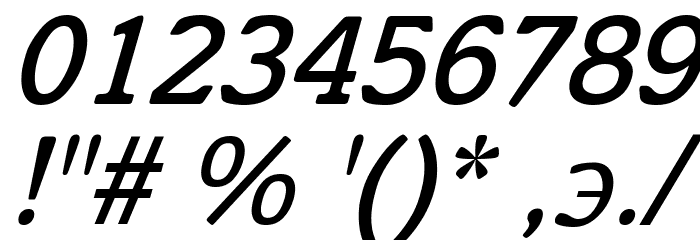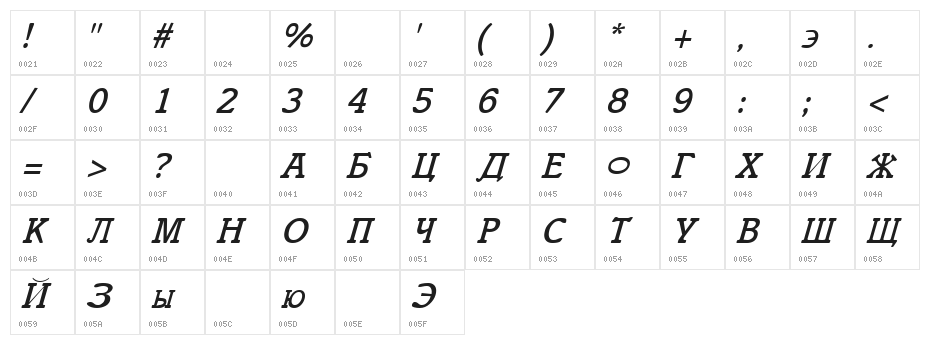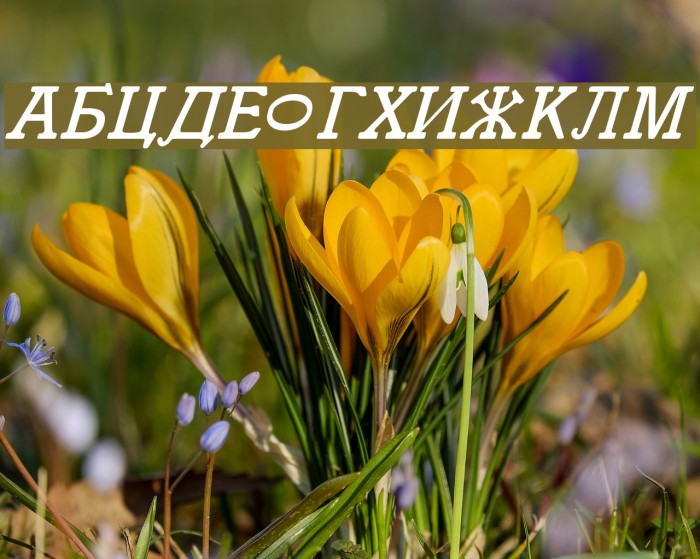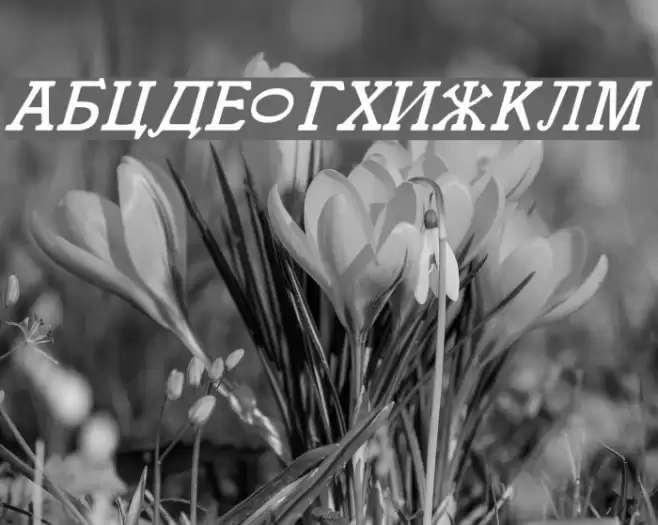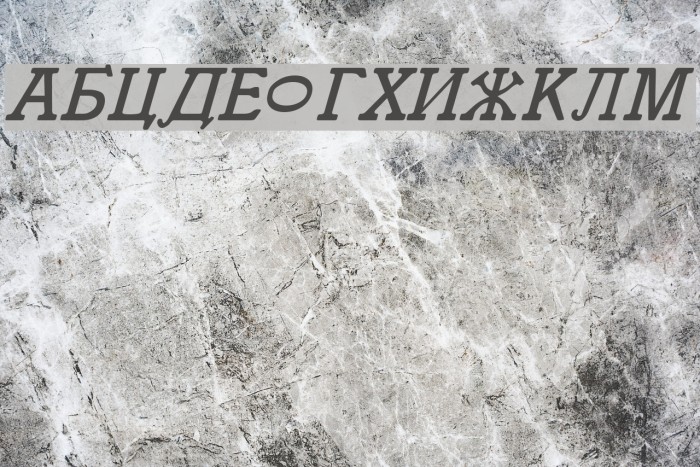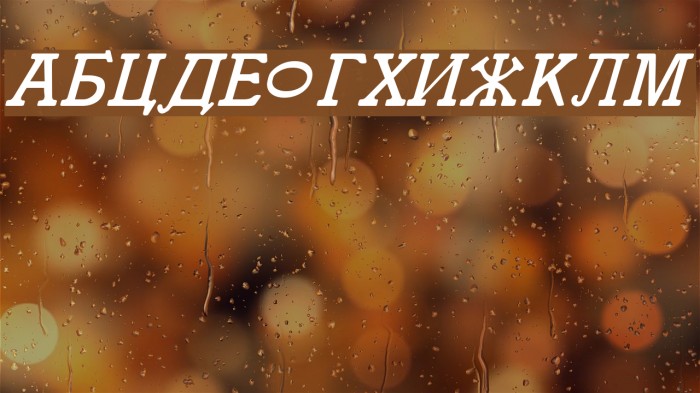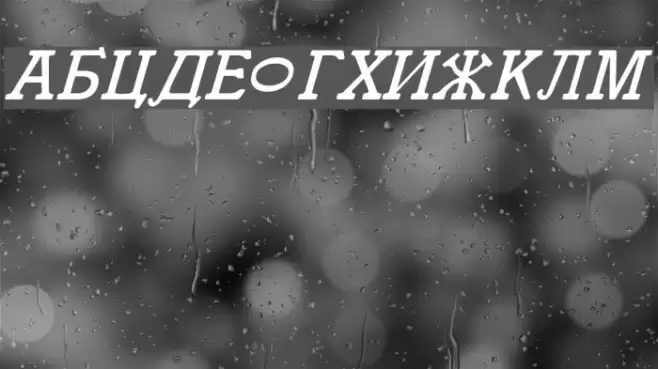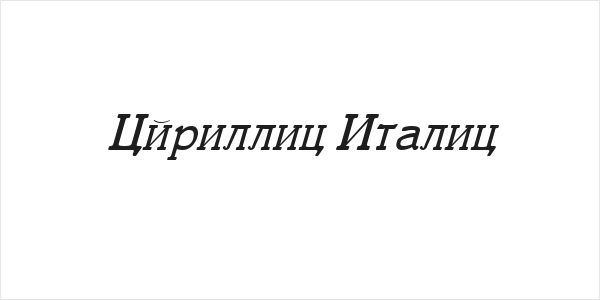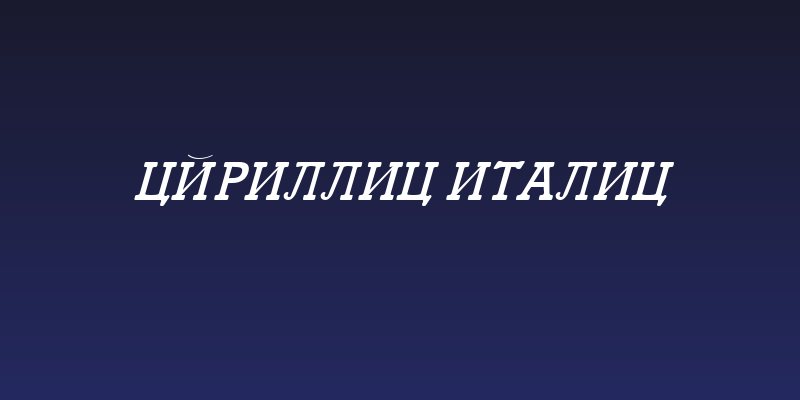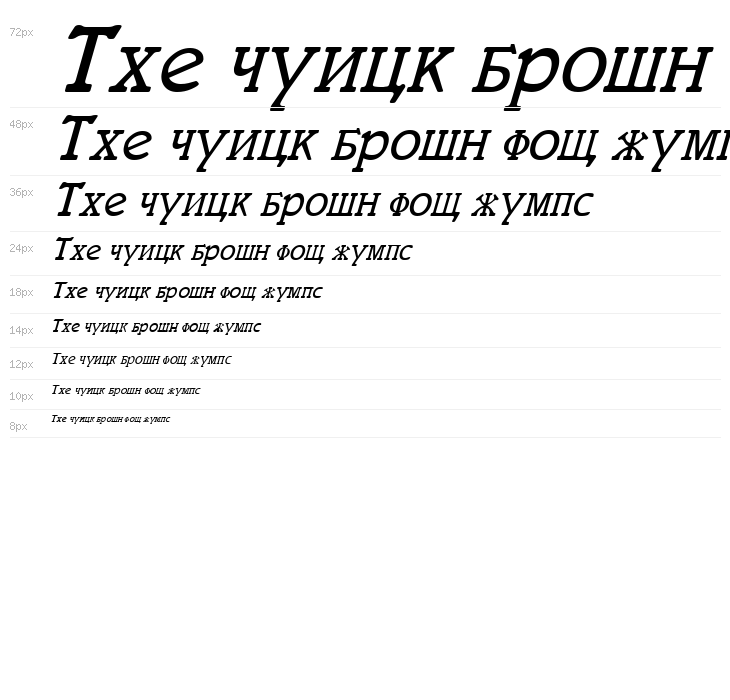
Cyrillic Italic Font
Cyrillic Italic Description
This font features a classic italic style with a distinct slant, giving it a dynamic and elegant appearance. The Cyrillic characters are well-defined, with smooth curves and sharp serifs that enhance readability. The numbers and special characters maintain the same italicized style, ensuring consistency across all elements. The font's design is both traditional and sophisticated, making it suitable for formal documents and creative projects alike. Its balanced proportions and clear legibility make it versatile for various applications.
| Proposed Projects | Ideal for use in formal documents, invitations, branding, and editorial design where a touch of elegance is desired. |